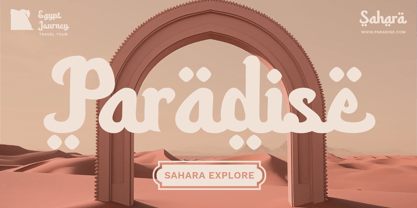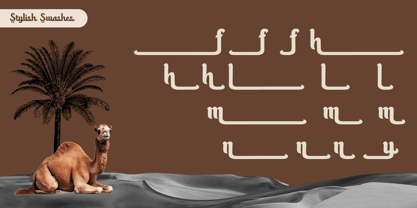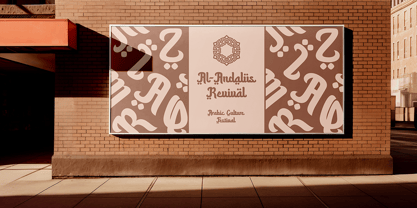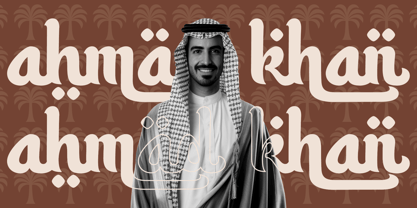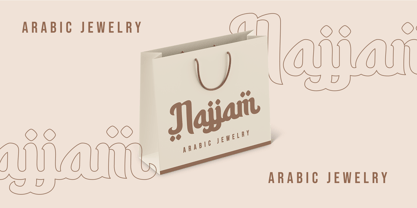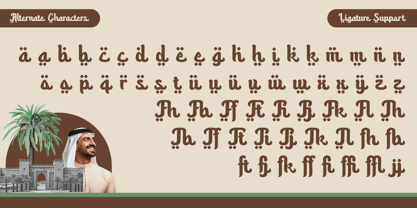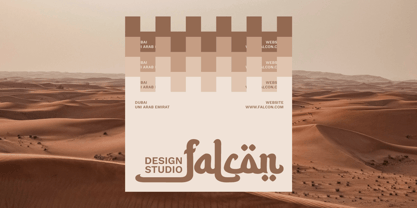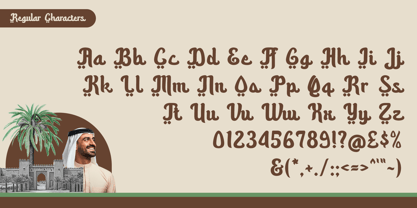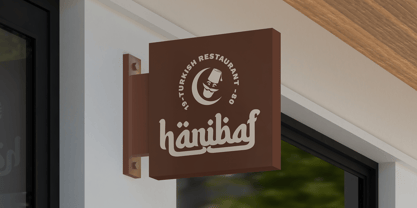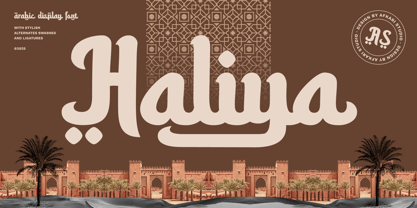
Haliya Arabic
by Afkari Studio
The Haliya Arabic Font Family was designed by Musthafa Kamal Emje and published by Afkari Studio. Haliya Arabic contains 1 styles. More about this family
Haliya - Arabic Font Style Typeface
Haliya is an elegant Arabic-style typeface designed to bring the beauty of traditional Arabic calligraphy into modern design. With its fluid curves, graceful strokes, and intricate details, this font is perfect for branding, editorial design, packaging, and Islamic-themed projects.
Inspired by Middle Eastern aesthetics, Haliya combines authentic Arabic letterforms with a contemporary touch, making it ideal for luxury branding, Ramadan campaigns, halal products, and cultural designs. Whether you're crafting logos, social media graphics, or invitation cards, Haliya adds a sophisticated and artistic feel to your work.
Features;
- Special Alternates and ligatures
Elevate your designs with Haliya – where Arabic heritage meets contemporary creativity! 🌙